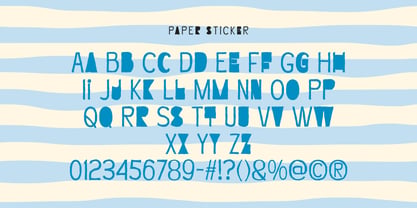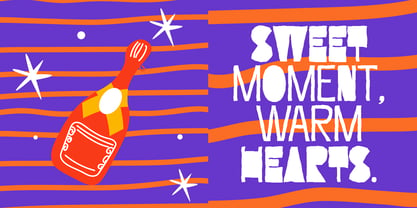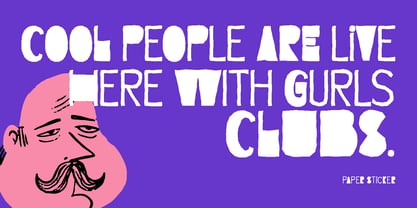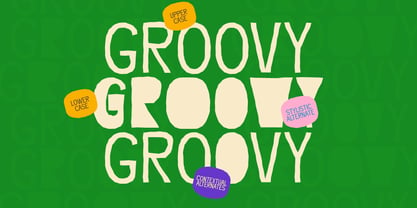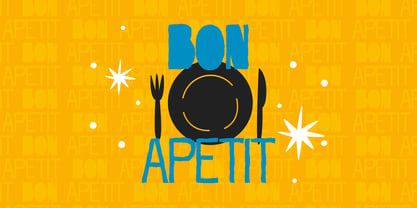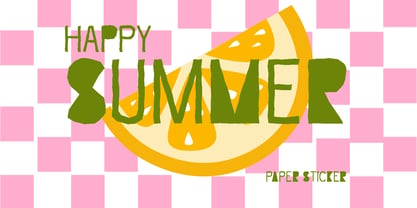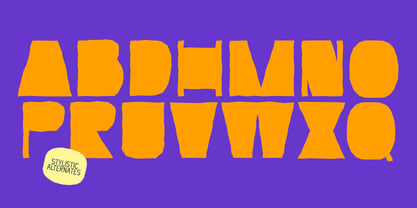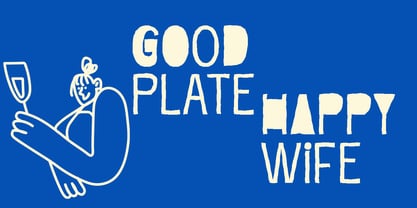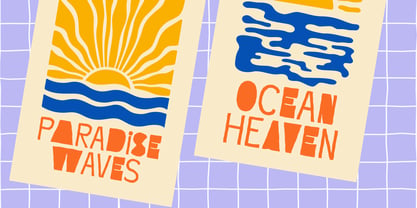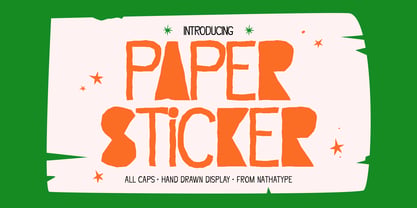
Paper Sticker
by Nathatype
The Paper Sticker Font Family was designed by Donis Miftahudin and published by Nathatype. Paper Sticker contains 1 styles. More about this family
Paper Sticker is a unique display script font. Unlike traditional script fonts, Paper Sticker blends script-inspired movement with a display-style structure, making it perfect for bold design while maintaining a friendly, approachable feel. The low contrast keeps the letterforms smooth and consistent, while the irregular outlines add texture and a paper-cut, handmade effect that stands out beautifully in both digital and print designs. In addition, enjoy the features here. Features: Stylistic Alternates Contextual Alternates Multilingual Supports PUA Encoded Numerals and Punctuations Paper Sticker fits in logos, quotes, branding, posters, and many more designs. Find out more ways to use this font by taking a look at the font preview. Thanks for purchasing our fonts. Hopefully, you have a great time using our font. Feel free to contact us anytime for further information or when you have trouble with the font. Thanks a lot and happy designing
Designers: Donis Miftahudin
Foundry: Nathatype